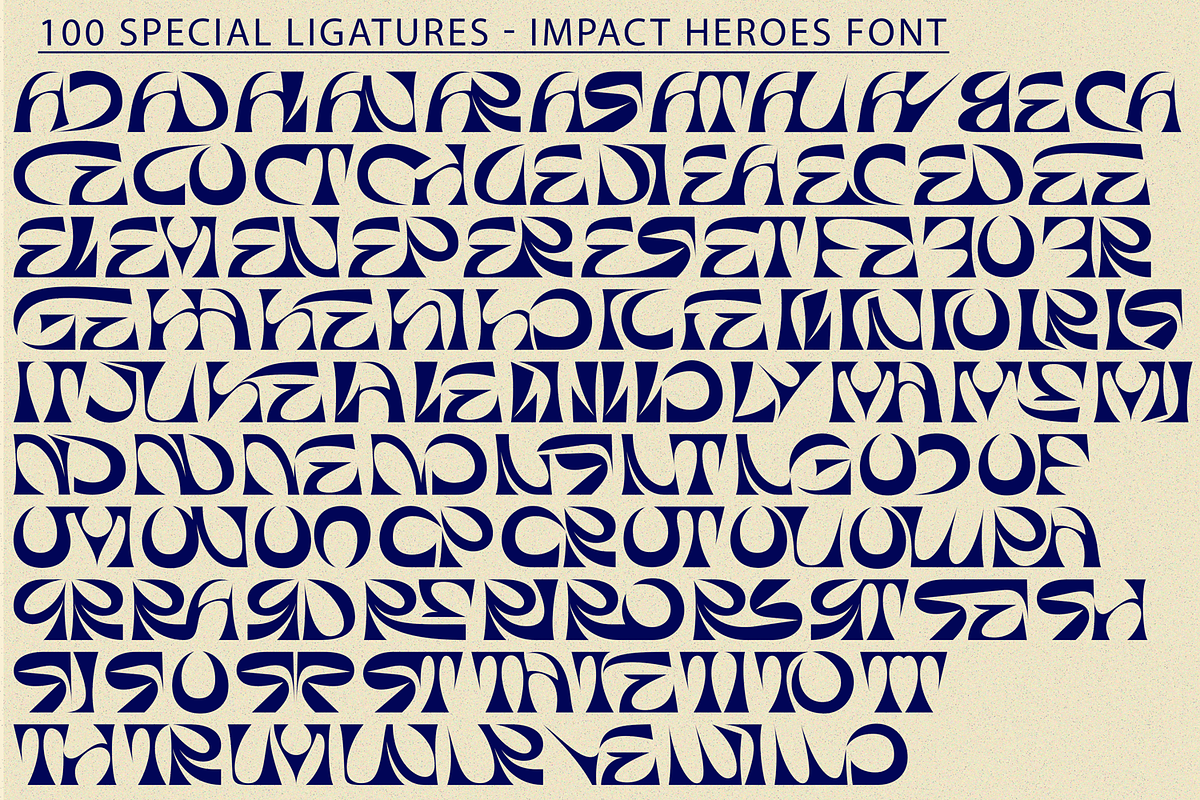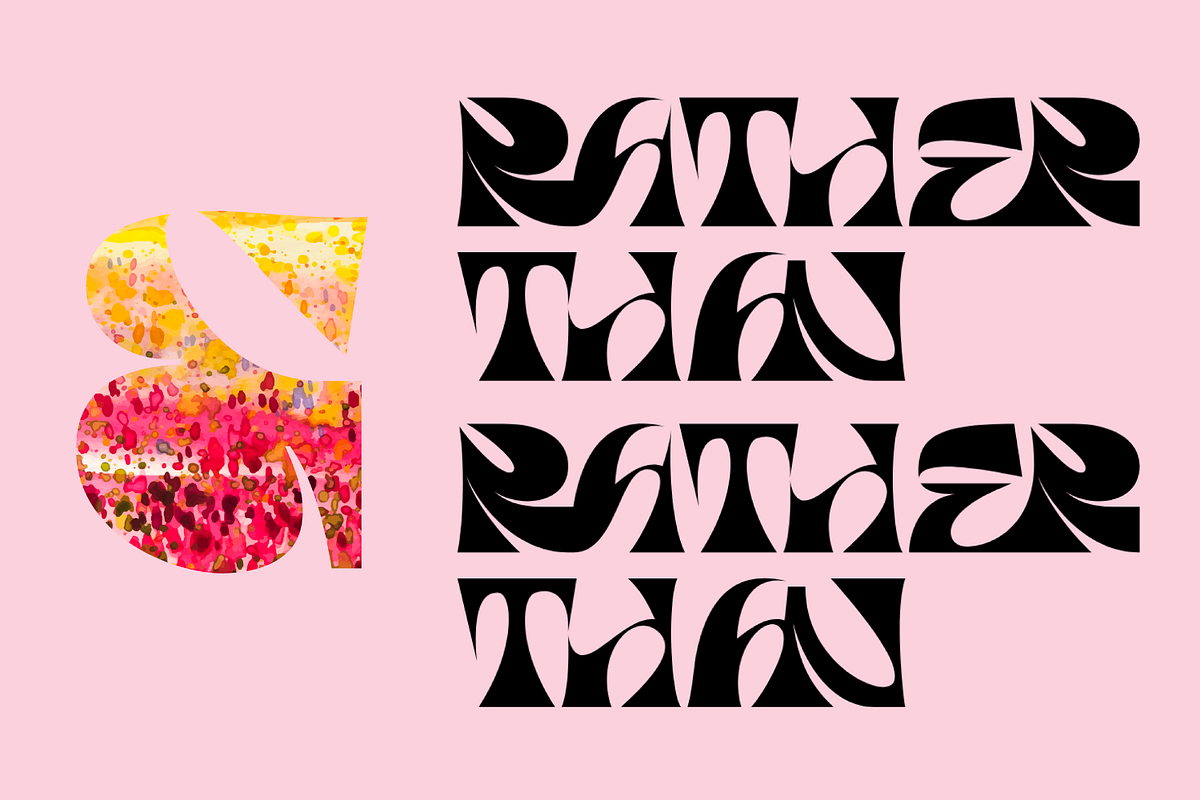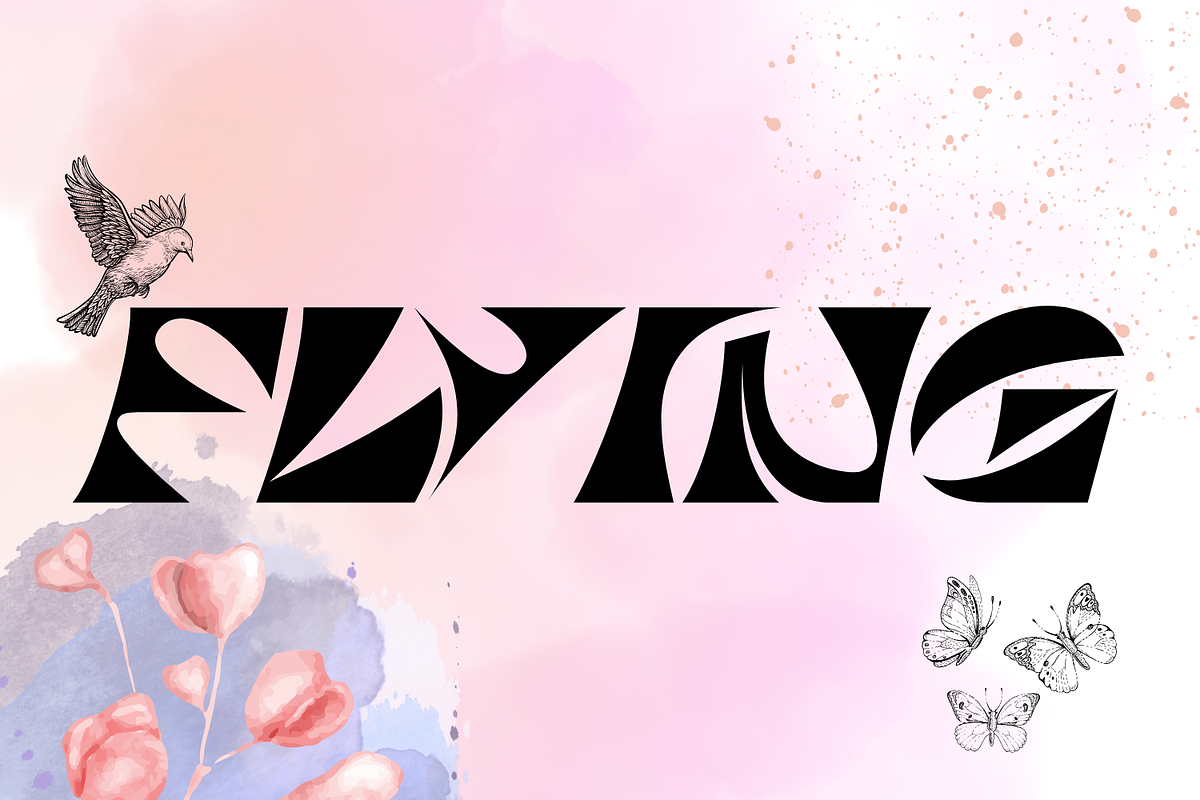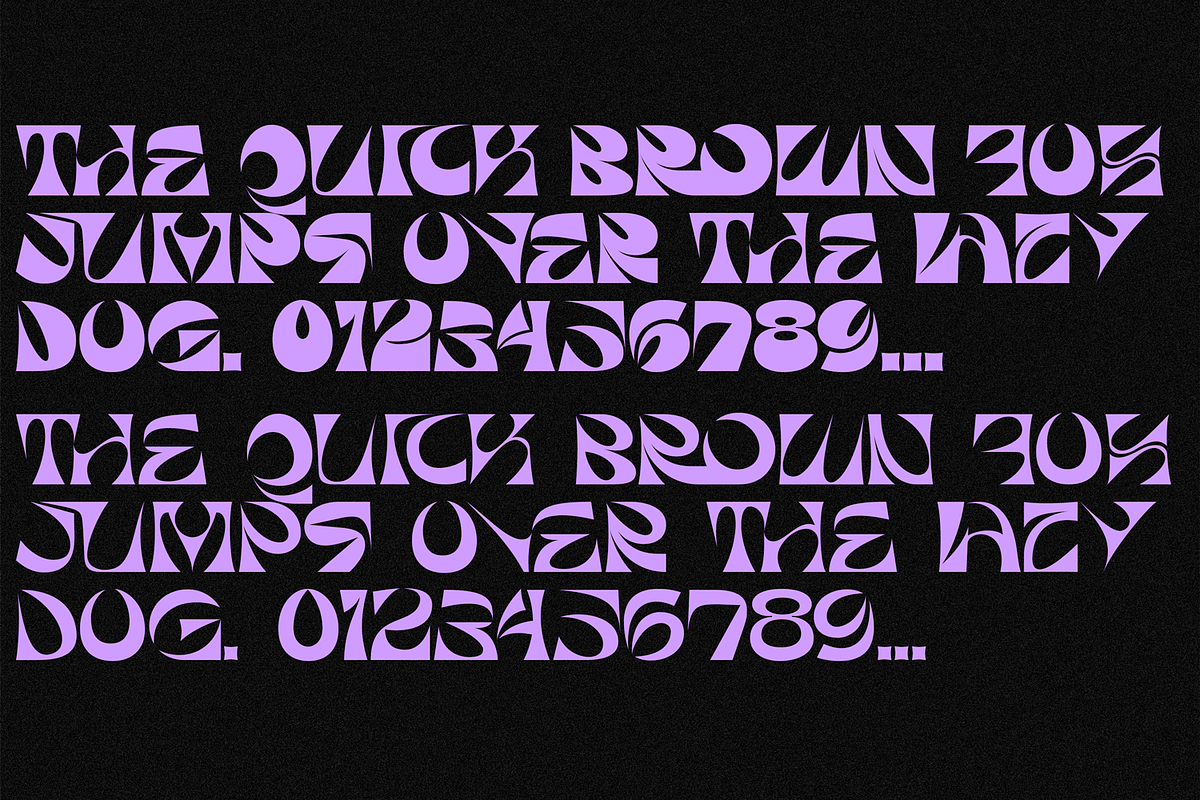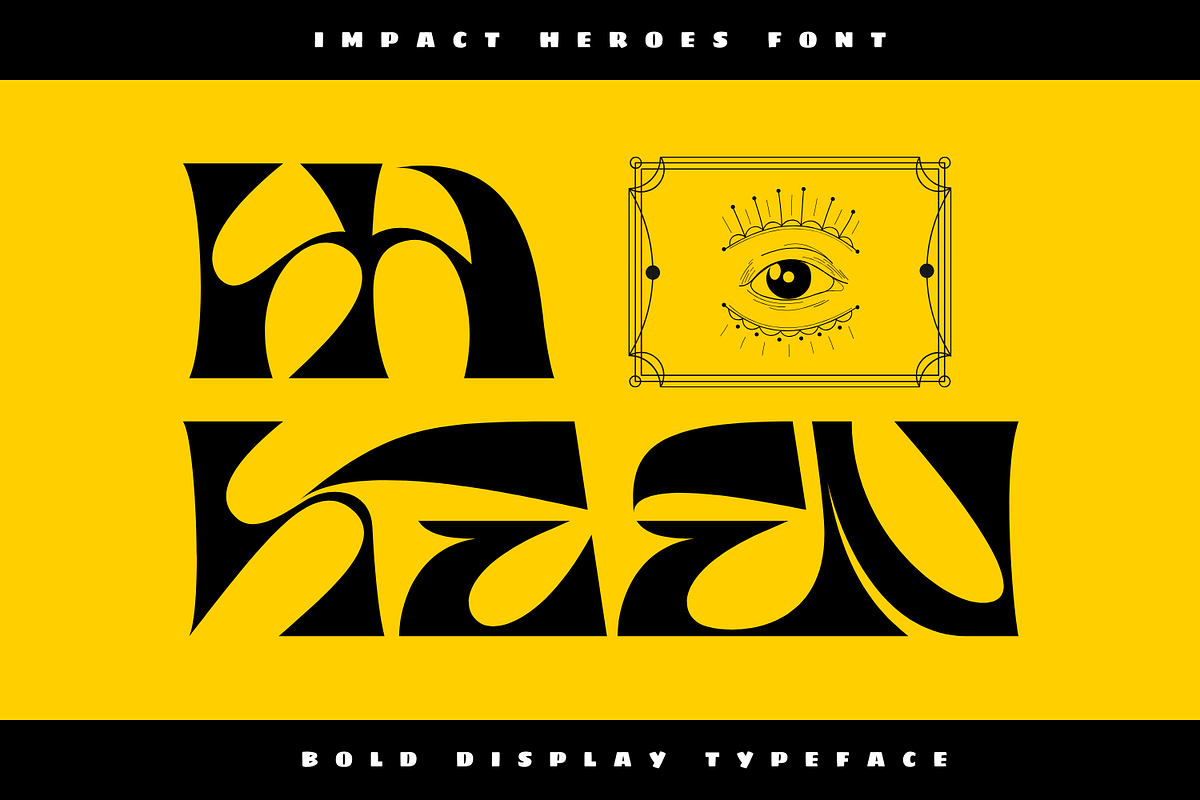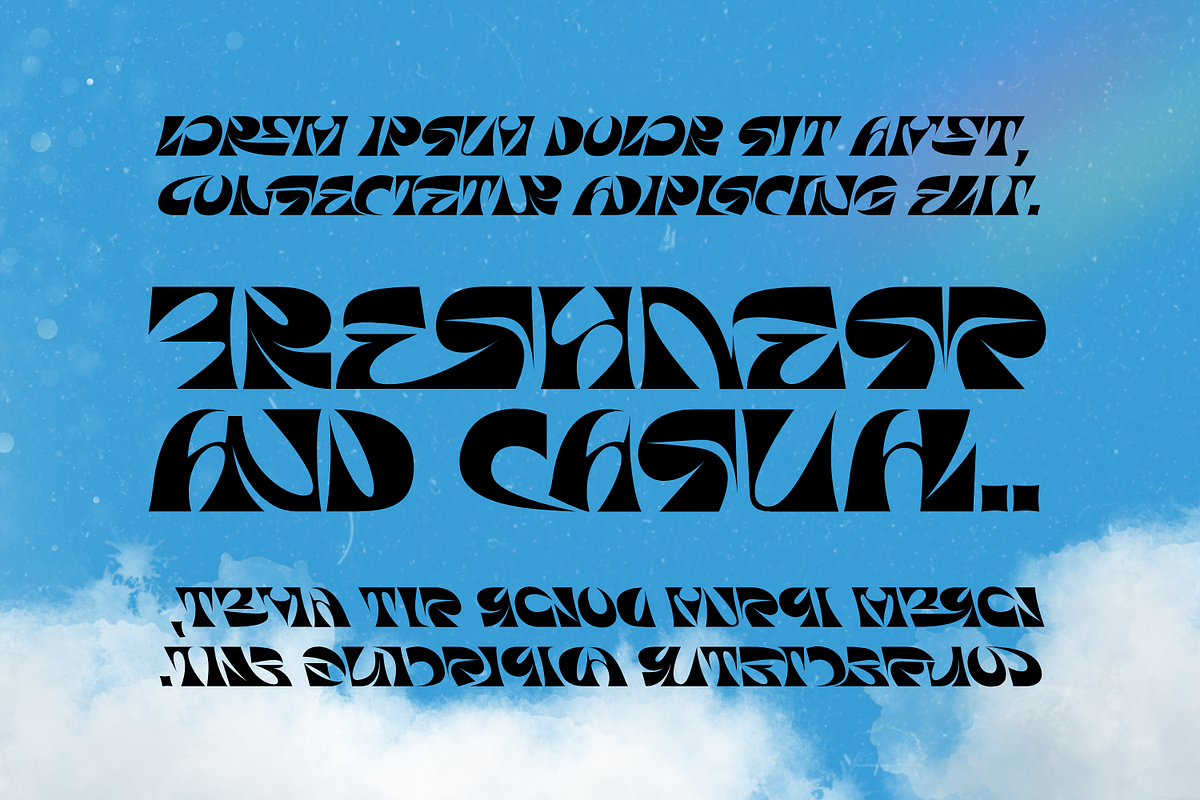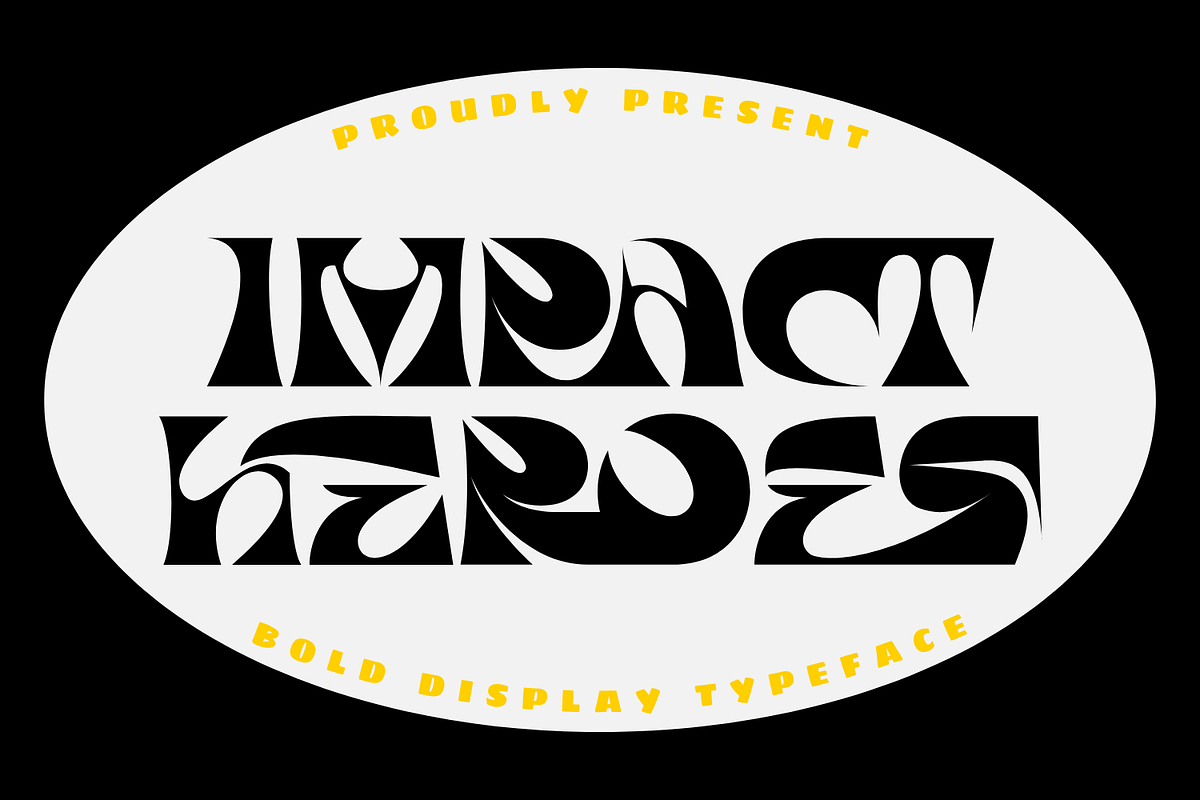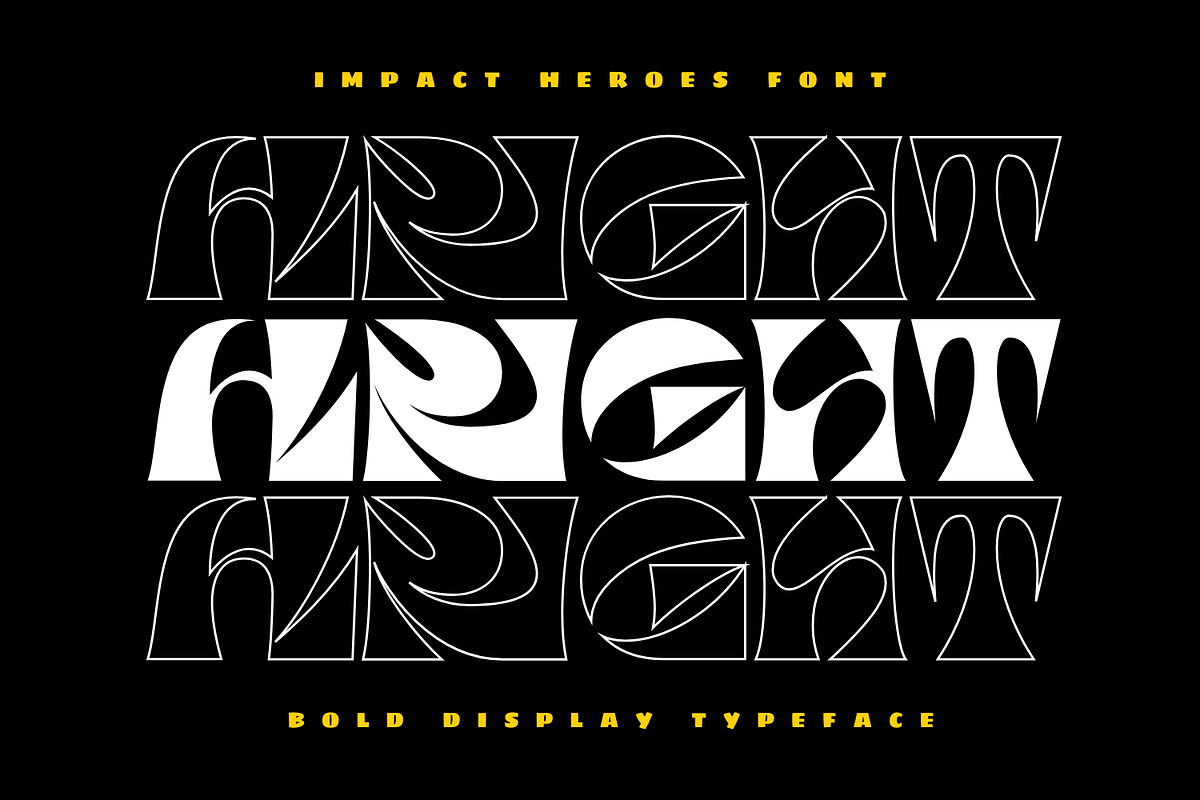
Impact Heroes Font
Impact Heroes Font - a strikingly distinctive retro display font, a daring and playful typeface crafted to elevate your imaginative endeavors. Embodying the retro charm of the psychedelic period. It's proves its potential in the realm of multilingual communication. With versatility at its core, This font shines when incorporated in branding, magazine layouts, typographical pieces, poster design, eye-catching thumbnails, and streetwear art.
Impact Heroes was built with OpenType features and includes 100 ligatures, alternate, numbers, punctuation, and it also supports other languages.
AC AD AL AN AR AS AT AU AV BE CA CE CH CO CT DE DI EA EC ED EE EL EM EN EP ER ES ET FE FO FR GE HA HE HI HO IE IC IL IN IO IR IS IT JU KE LA LE LI LL LO LY MA ME MI NC ND NE NG NO NT NS OC OF OM ON OO OP OR OT OU OW PA PR RA RD RE RI RO RS RT SE SH SI SO SS ST TA TE TH TI TO TR TT UM UN UR VE WI WO
Impact Heroes Font by 177Studio fits naturally into Branding, posters, packaging, typography.